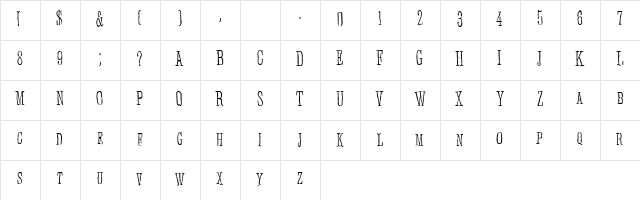
Anhedonia Regular
Design Context for Anhedonia Typeface
Anhedonia offers clean, dependable letterforms without strong stylistic allegiance, making it a practical choice for designers who need flexibility.